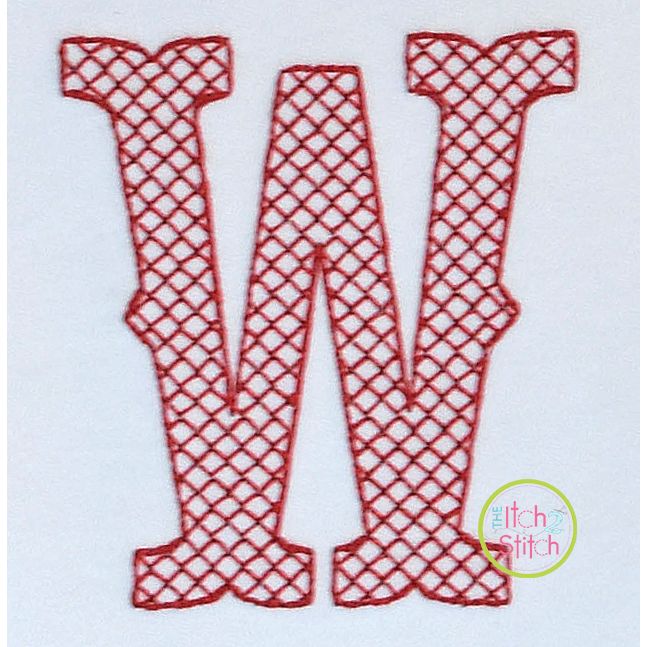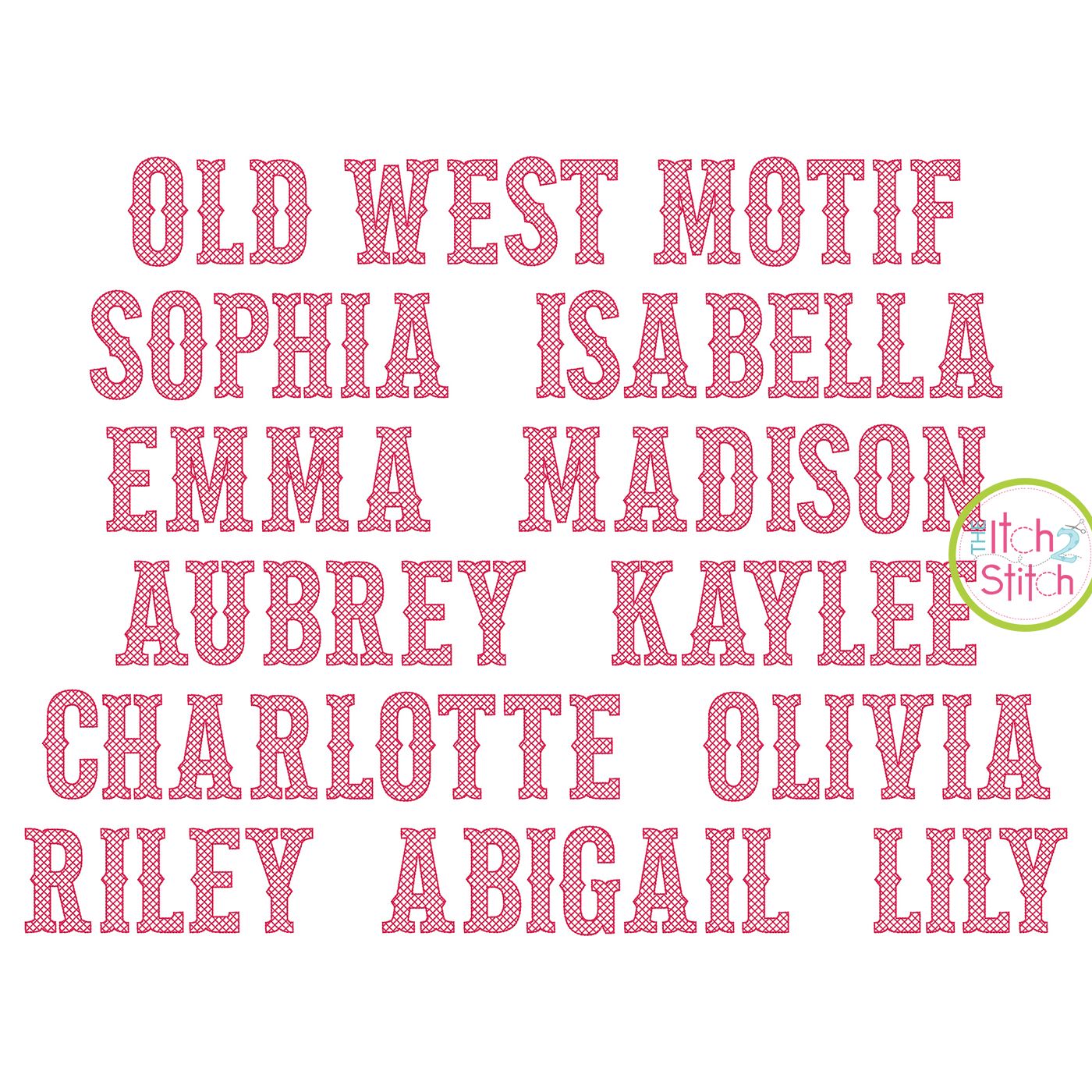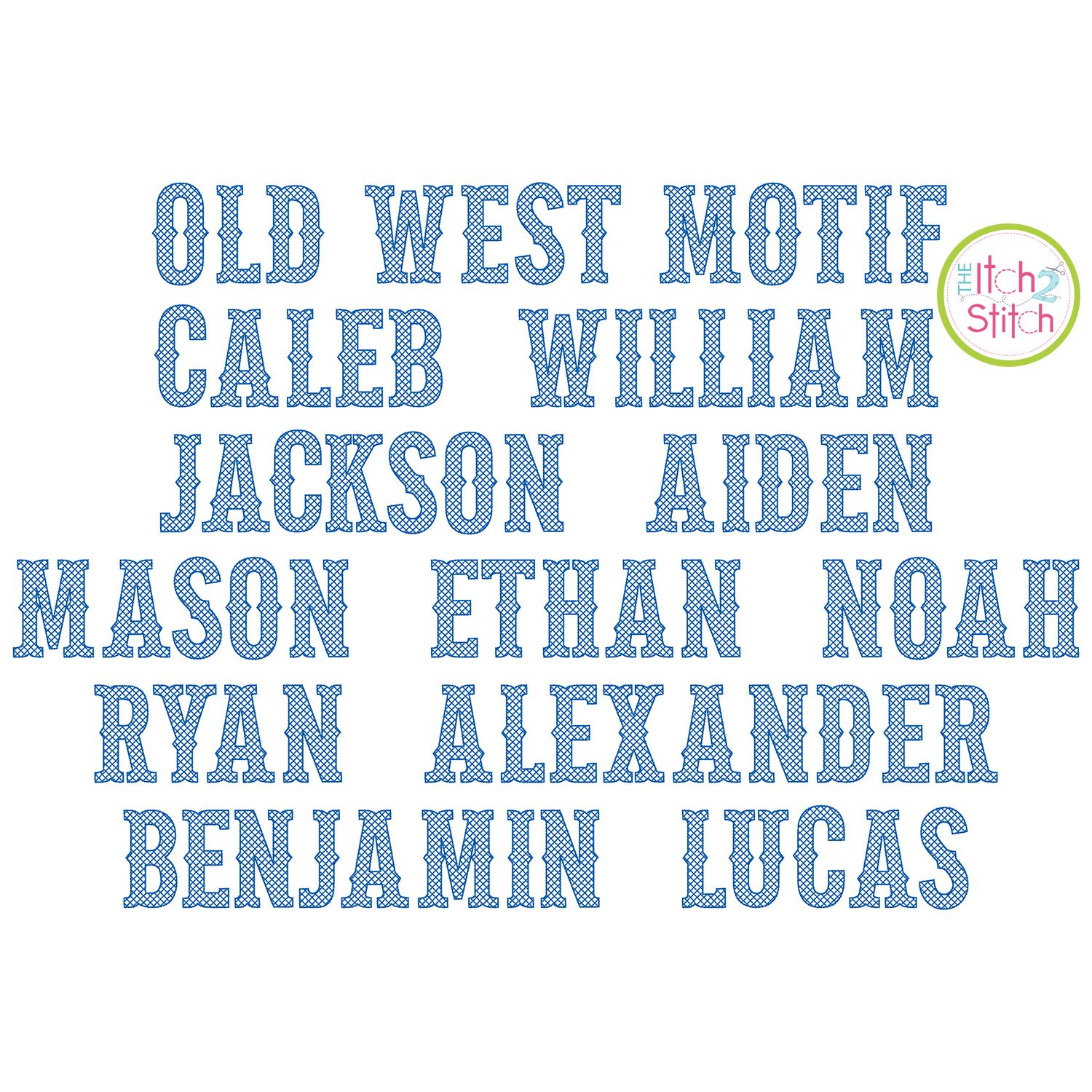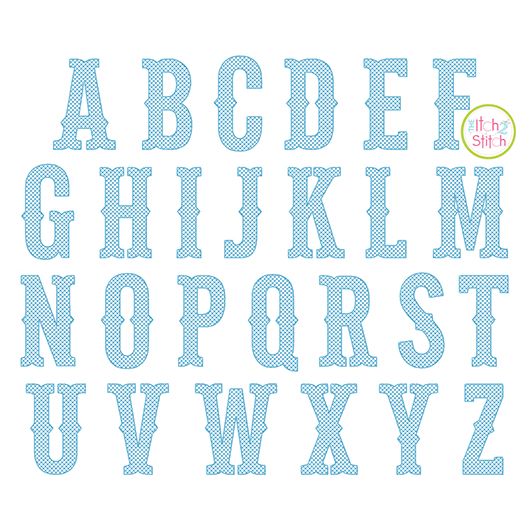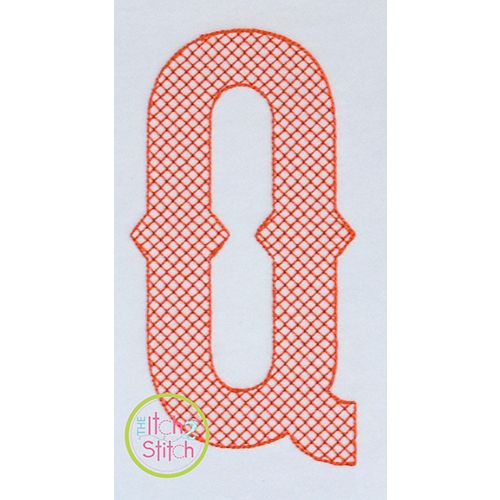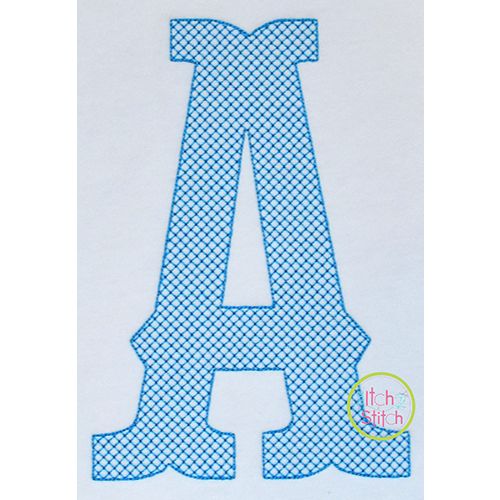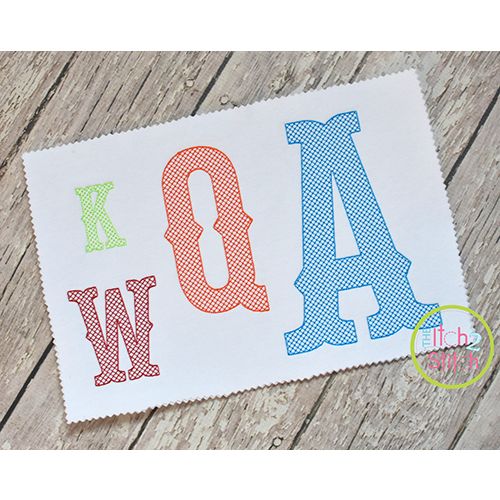
Please note this is not applique nor a traditional fill stitch font. The light and airy cross-hatch motif fill pattern allows for a quick stitch out. You will receive all capital A-Z letters (26 files) in twelve sizes. The size of the font is based on the height of the capital A, and the rest of the letters are scaled to match the original artwork. All letters in the 1.5" through 3.5" sizes fit in a 4x4 hoop. All letters in the 4" through 5.5" sizes fit in a 5x7 hoop. Some letters in the 6" and above sizes require a larger hoop.